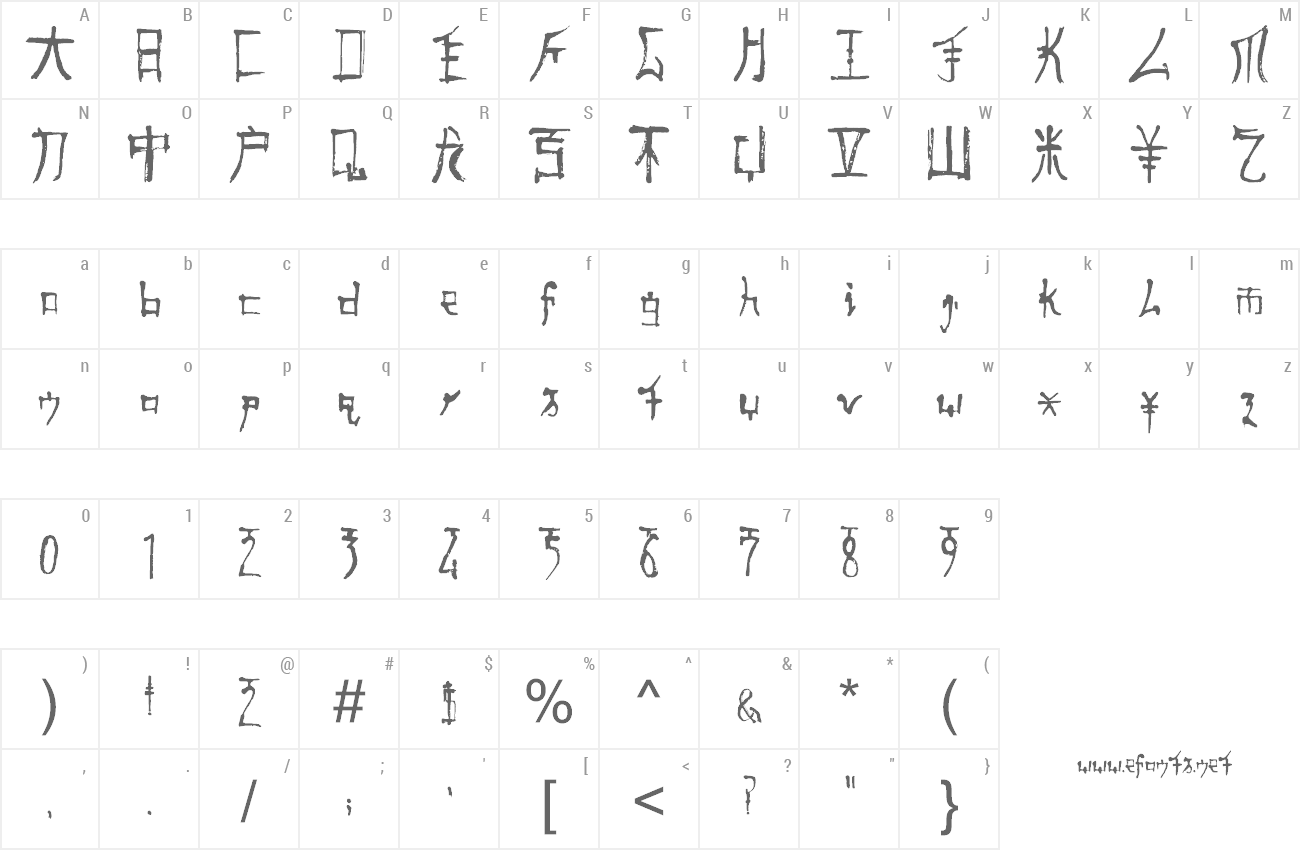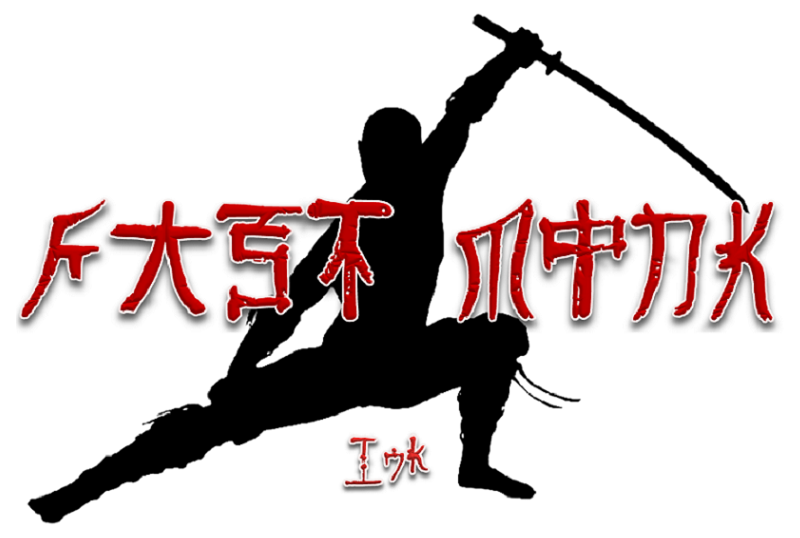
Preview and download Fast Monk Font. Created by Shelley Evans in Foreign look Chinese, Jpn styles with Free for personal use license.
| Categories | Foreign look, Chinese, Jpn |
| Fast Monk *Ink* was inspired by Chinese characters. The image to illustrate it, is by Mohamed Hassan at Pixabay. If you want to use this font for commercial purposes, it costs 99c at https://www.creativefabrica.com/designer/shelley-2/ Thank you. |